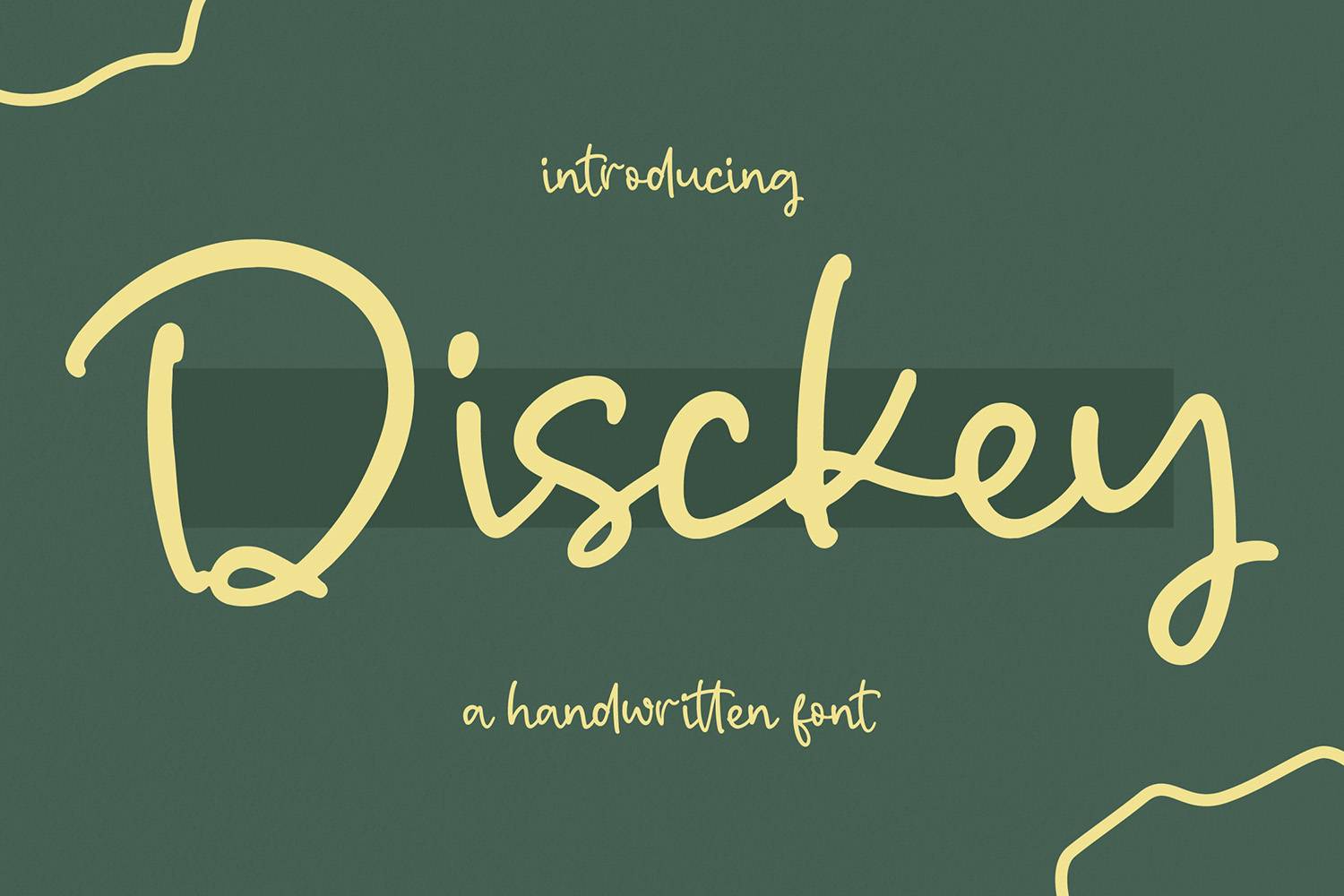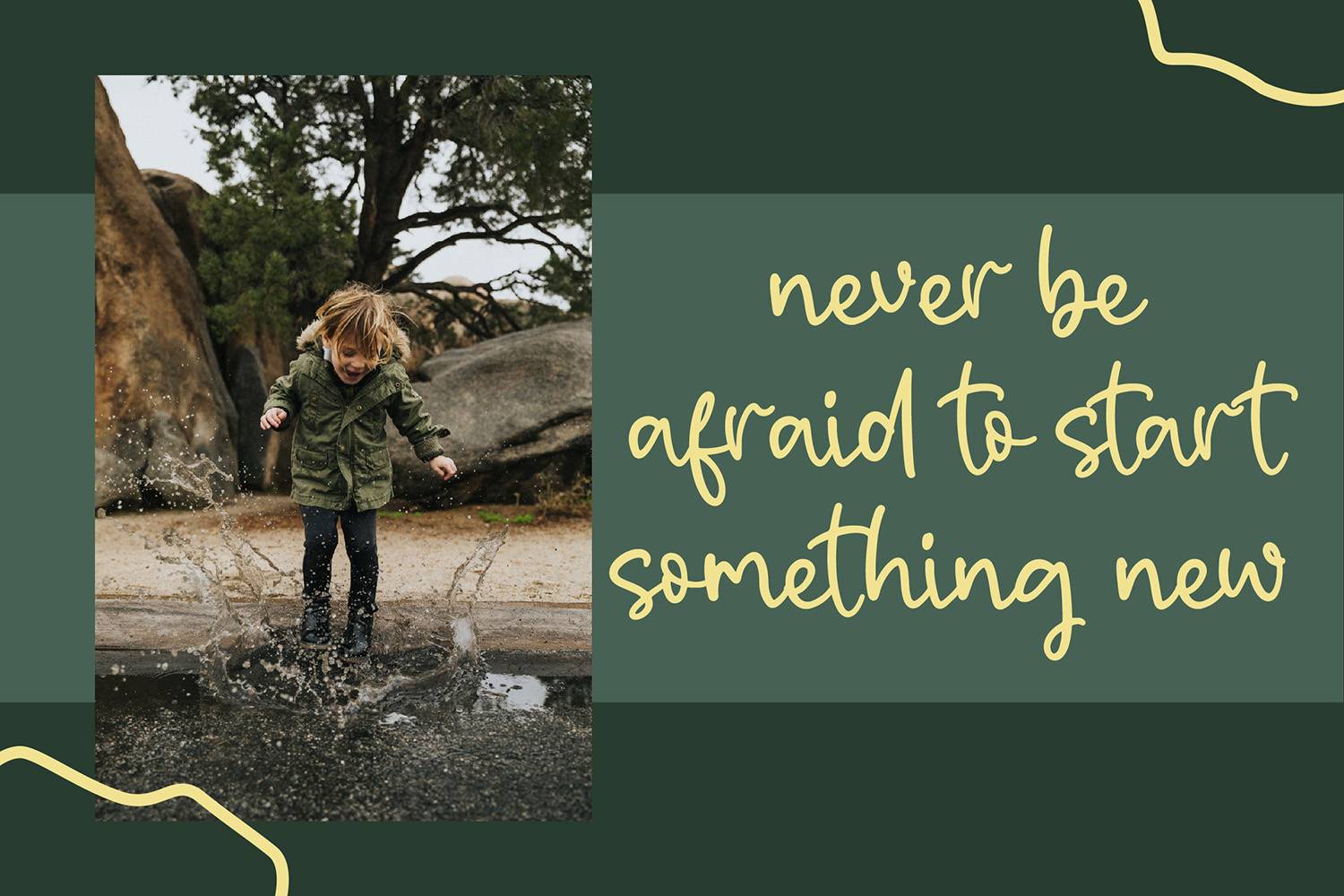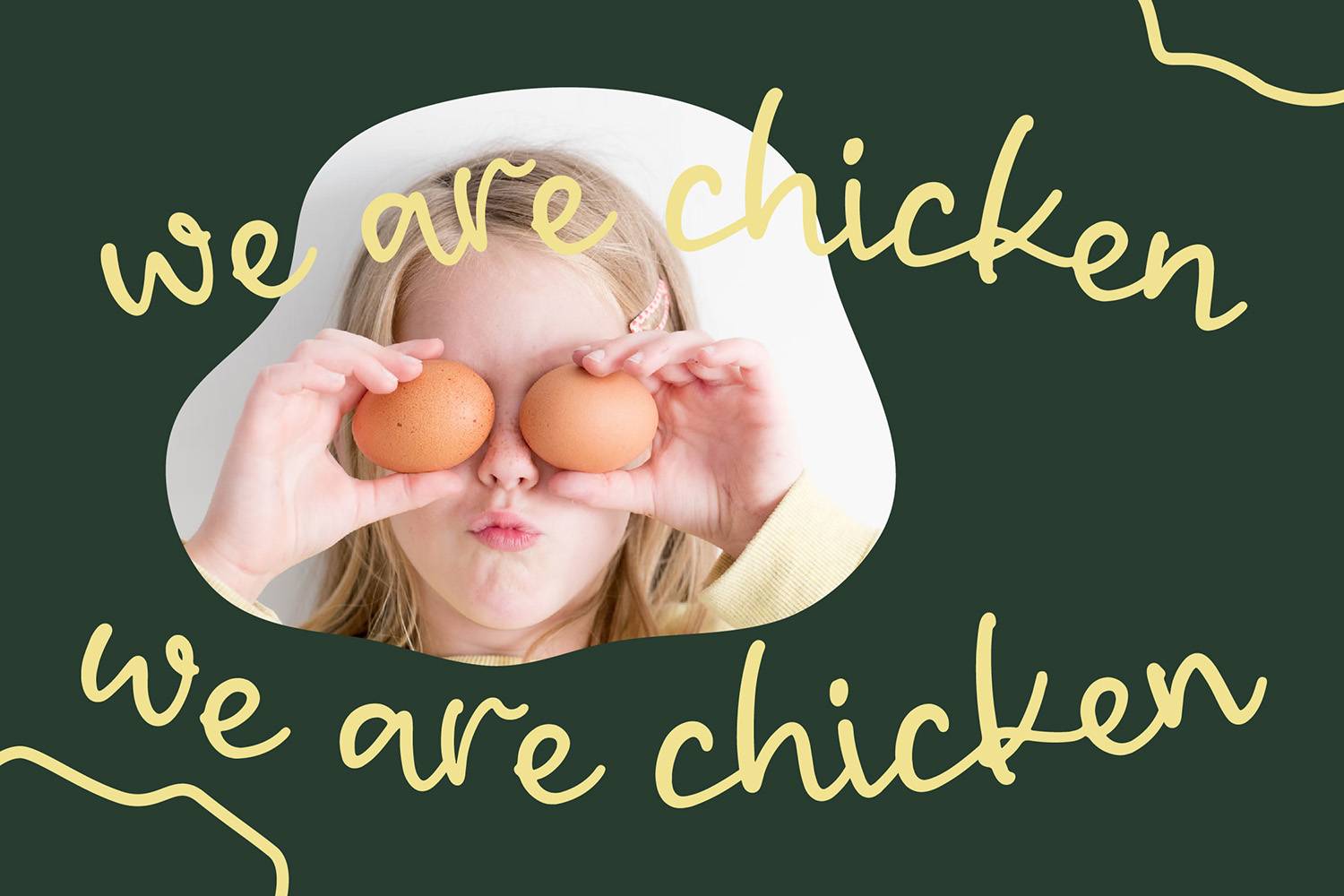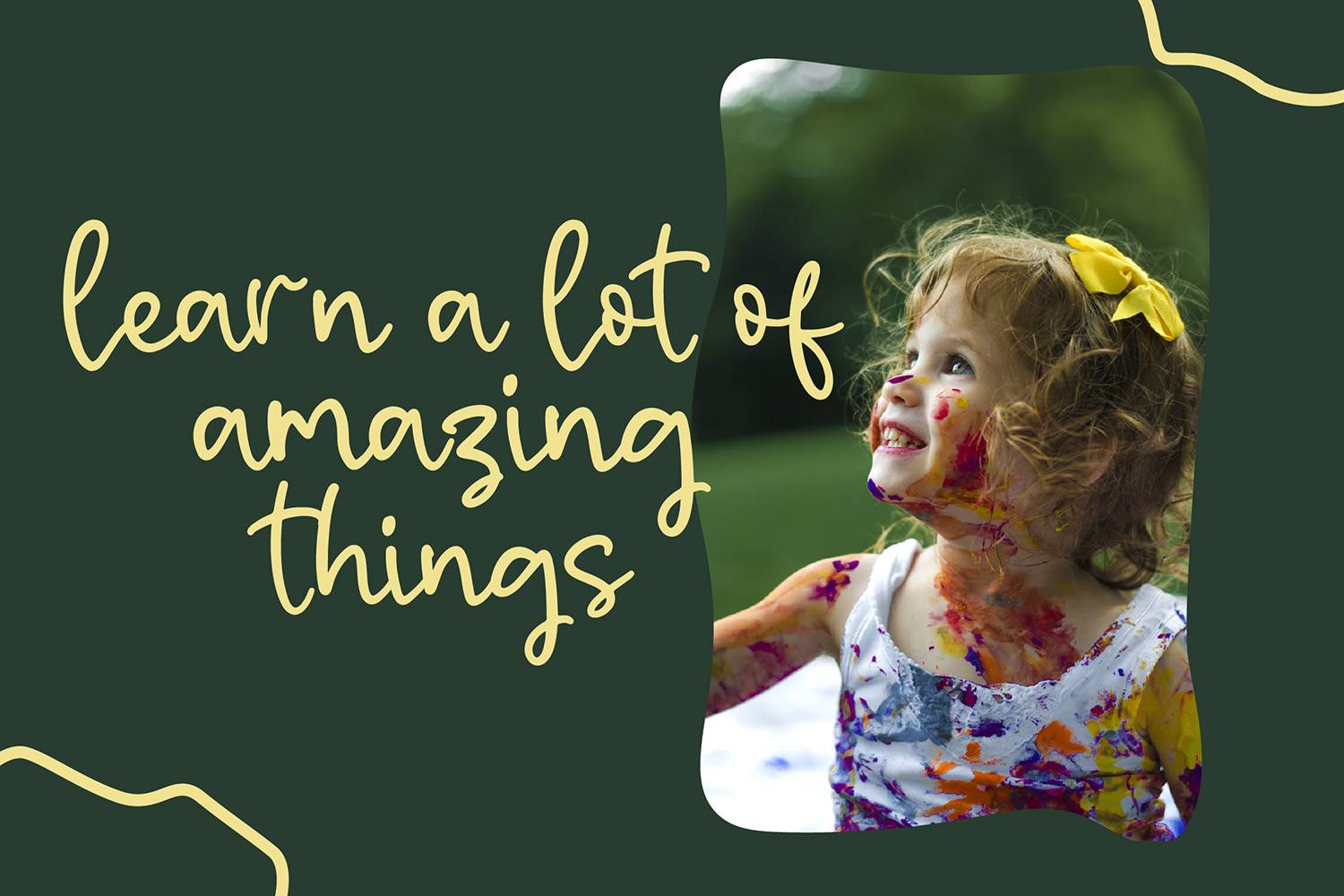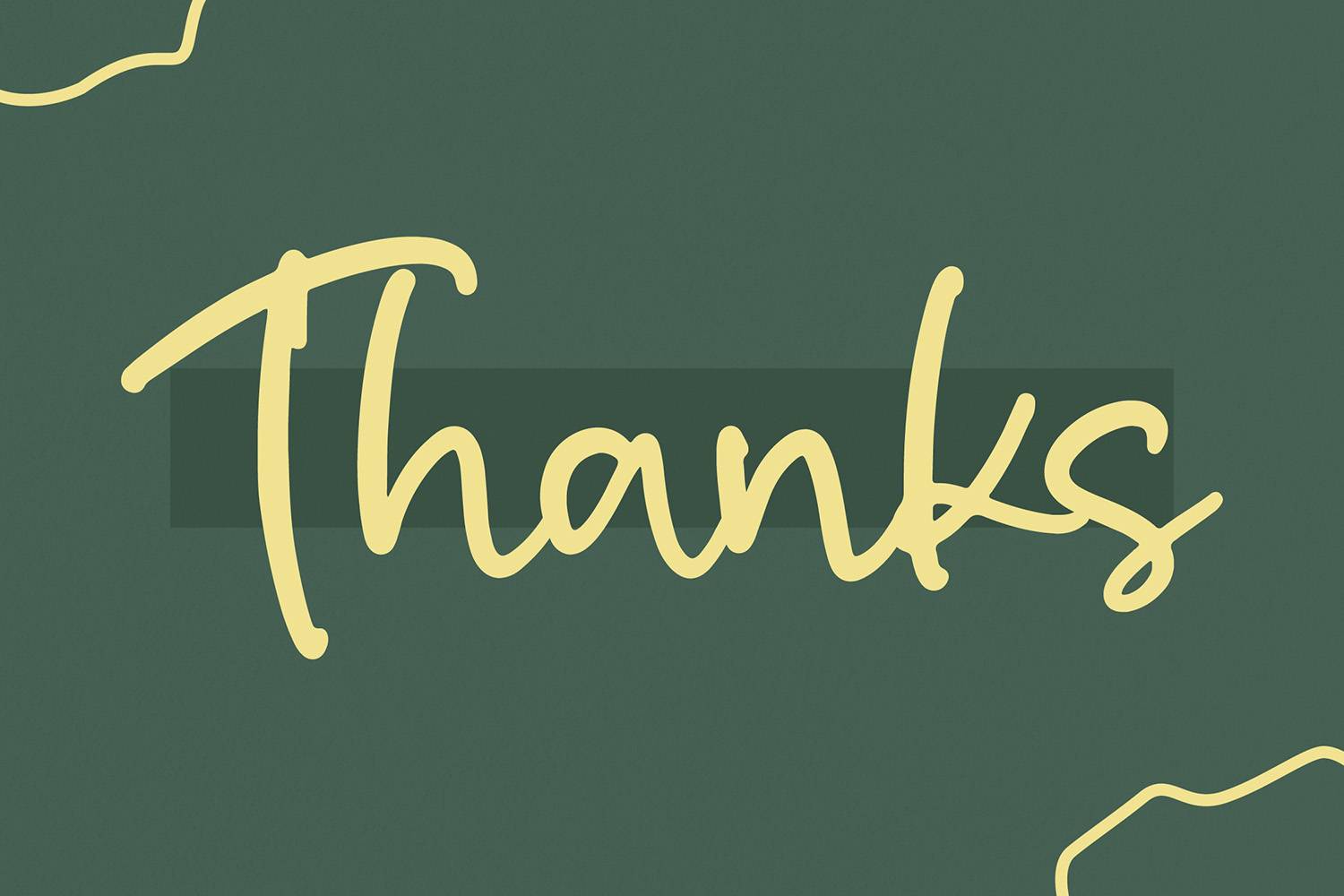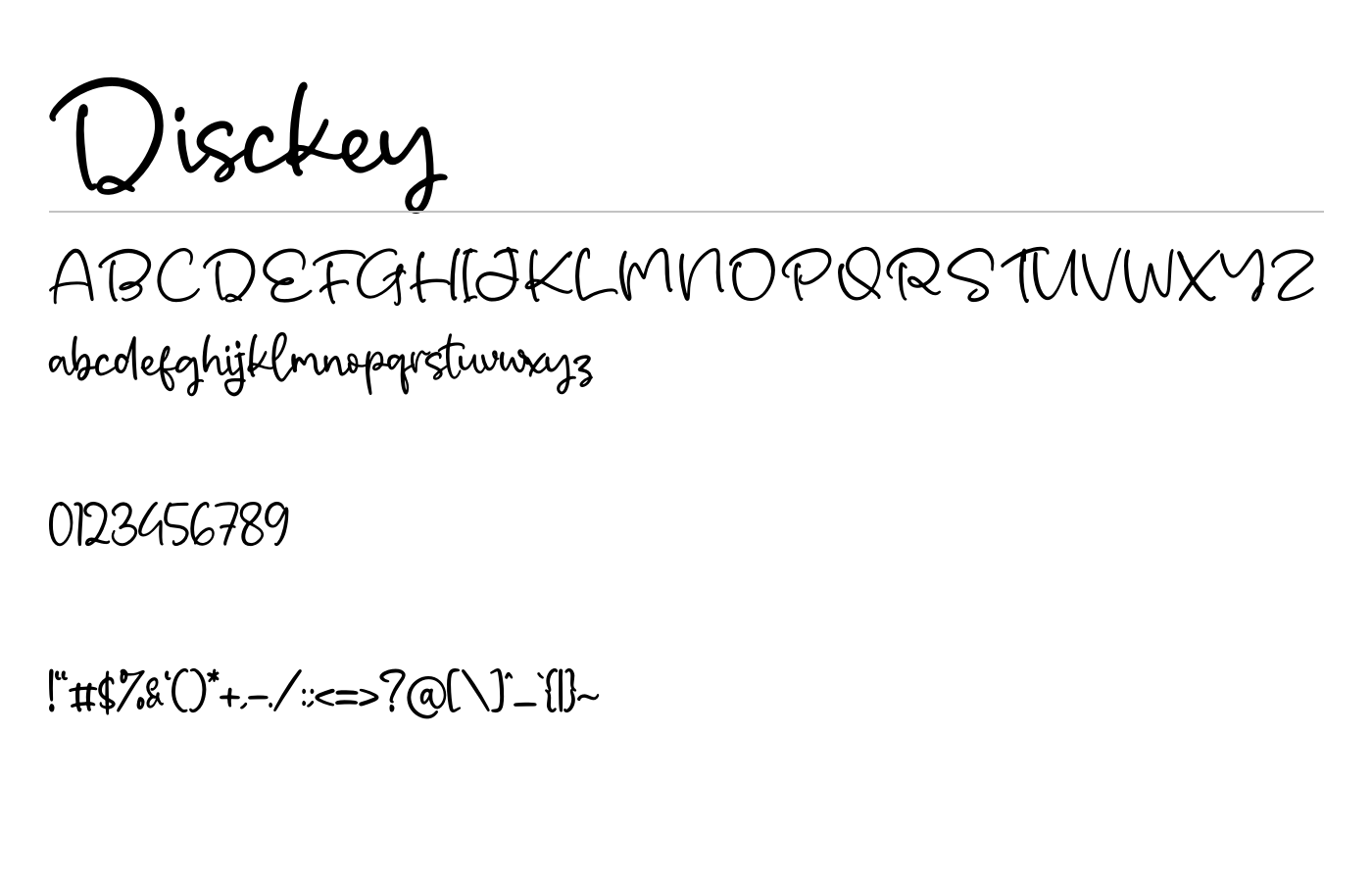
Disckey Font is a playful, casual handwritten script that features a light weight and slightly condensed letterforms with lively, irregular strokes. Its tall x-height and simple, rounded characters give it an approachable and friendly feel, making it ideal for informal branding, personal projects, or creative designs that want to convey warmth and originality. This font works best in logos, greeting cards, and social media where a personal, human touch is desired.
Disckey Font
About Disckey Font